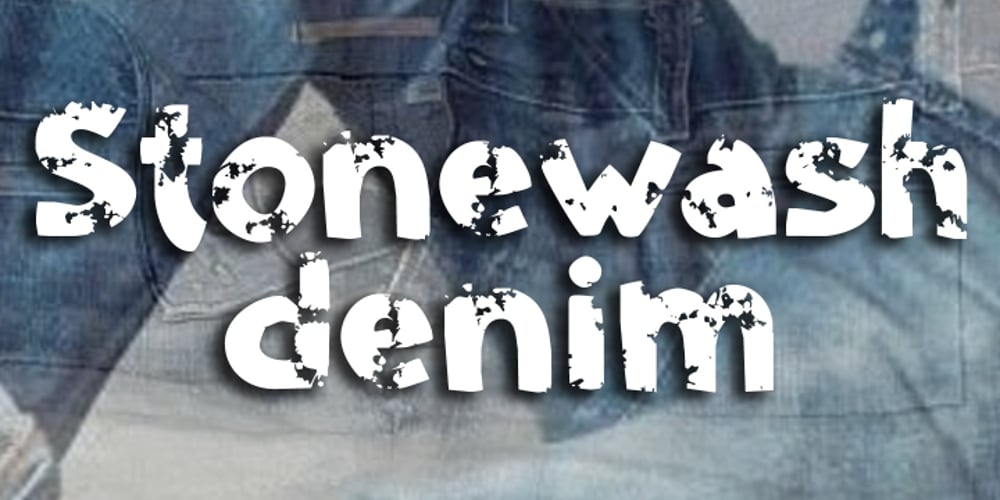
StoneWash Font Family was designed by Anton Scholtz and published by Scholtz Fonts. StoneWash contains 1 styles and family package options. StoneWash is a funky, grunge font, with a monumental marble finish. The font combines an “old as the hills grunge” look with IN YOUR FACE, modern lines. It has a look of very old, washed out denim, about to disintegrate. StoneWash has all of the grunge characteristics: — it’s dirty and corroded — it’s coarse & broken — it’s rough & pitted It also has the characteristics of an African style font: — it’s ethnic — it’s irregular — it’s primitive — it’s rustic — it’s vibrant Use StoneWash for a great variety of applications: — think advertisements – think flyers – think graffiti art – think posters – think magazine pages. You have to have StoneWash.